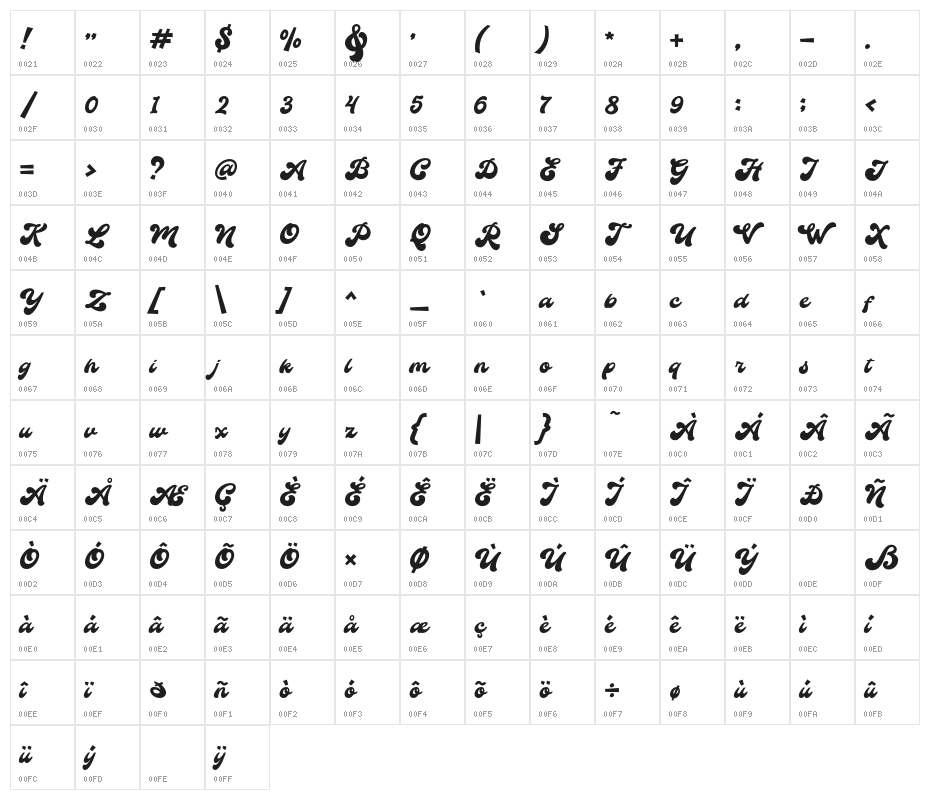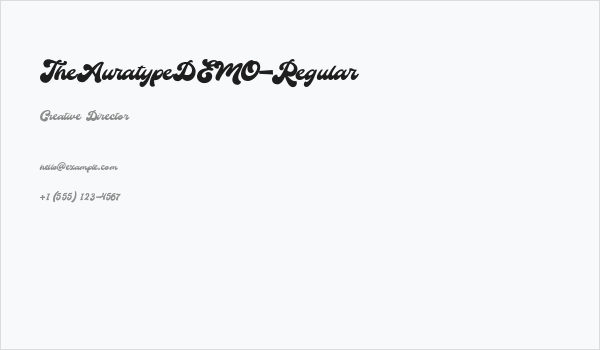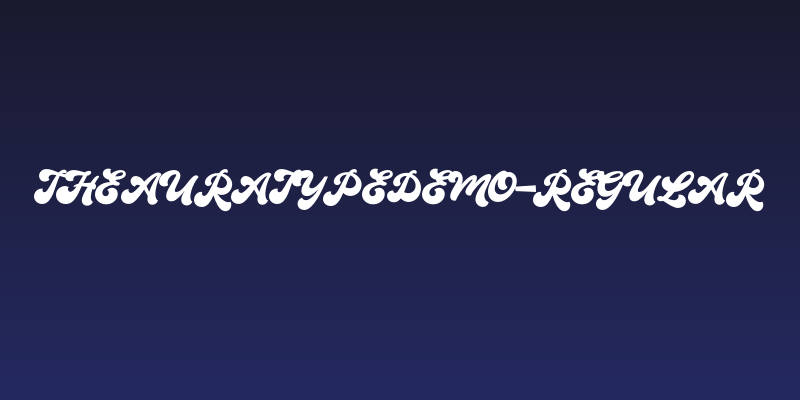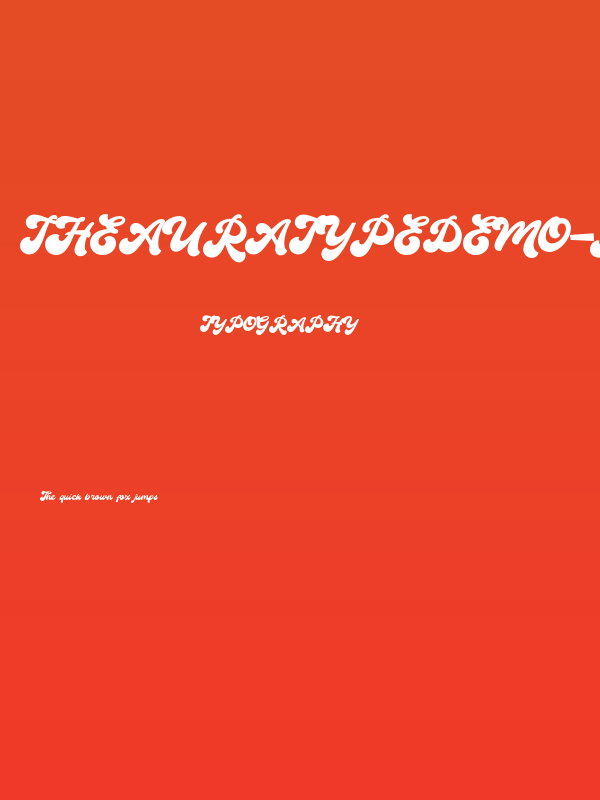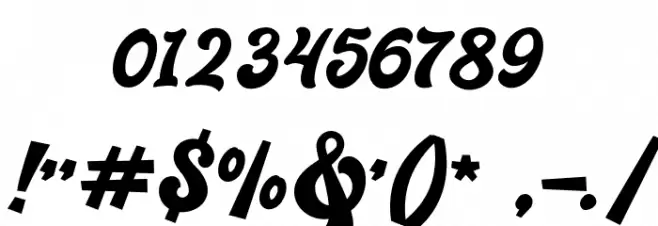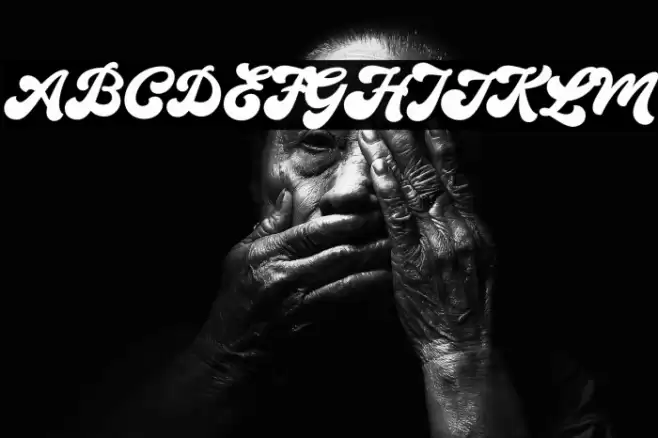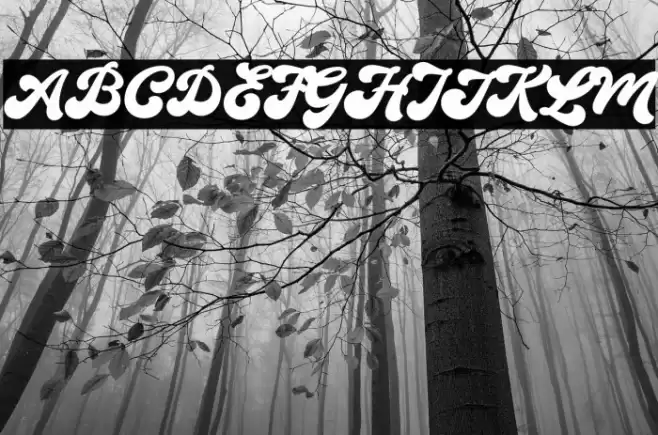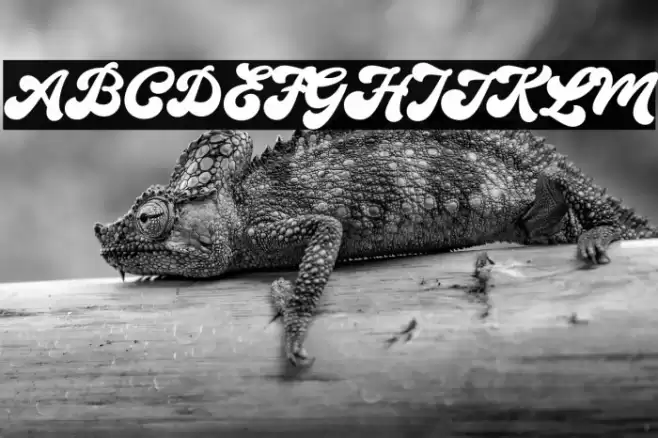
TheAuratypeDEMO-Regular Font
The Auratype is retro and classic typeface who inspired by the 60s - 80s designs with more unique explored style like swosh and alternate character. This font made from manual sketch with many many scratch then finished to font. Make your designs project
| Projets proposés | Ideal for wedding invitations, greeting cards, logos, and branding materials that require a personal touch. |